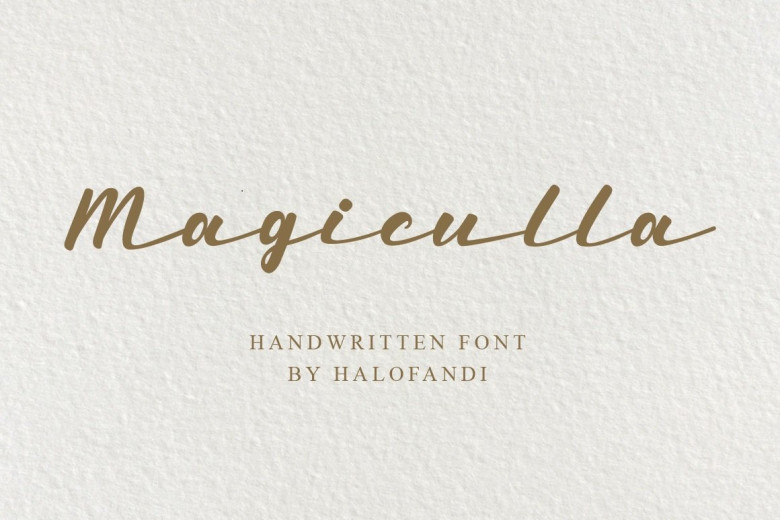
Magiculla Modern Handwritten Font
Magiculla Modern Script Font is an incredibly distinct, delicate and timeless handwritten font. It looks stunning on wedding invitations, thank you cards, quotes, greeting cards, logos, business cards and every other design which needs a handwritten touch.